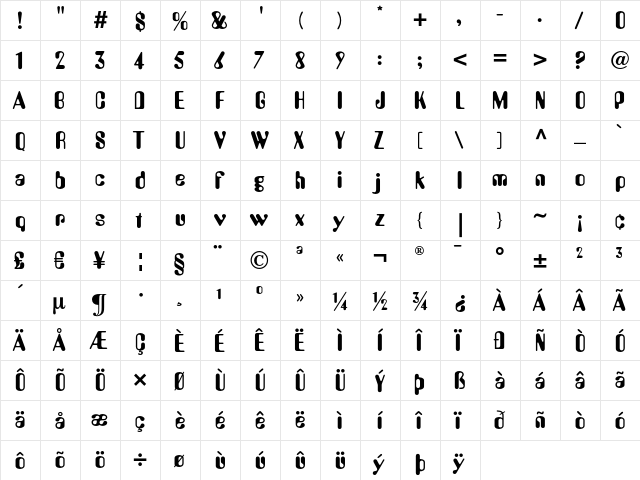
AmeliaLL Regular
Design Context for AmeliaLL Typeface
AmeliaLL is a composed and adaptable typeface that performs quietly and consistently across a wide range of design contexts.